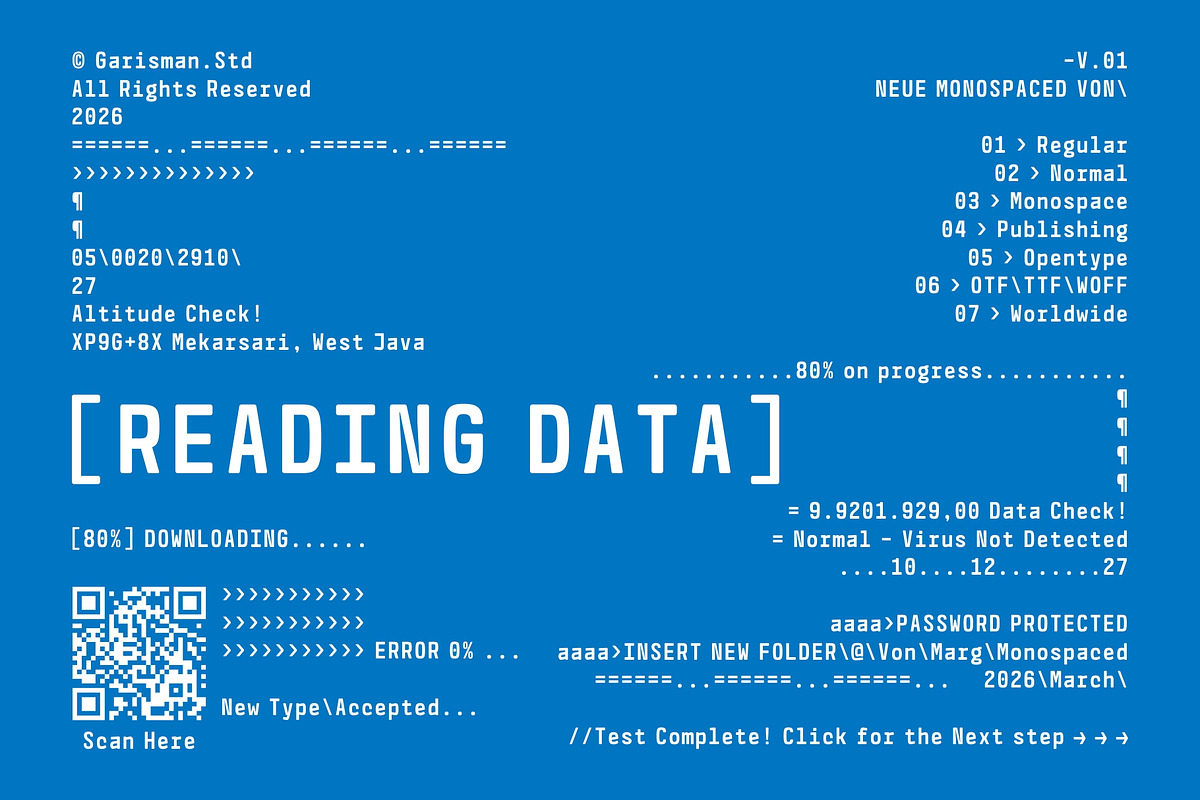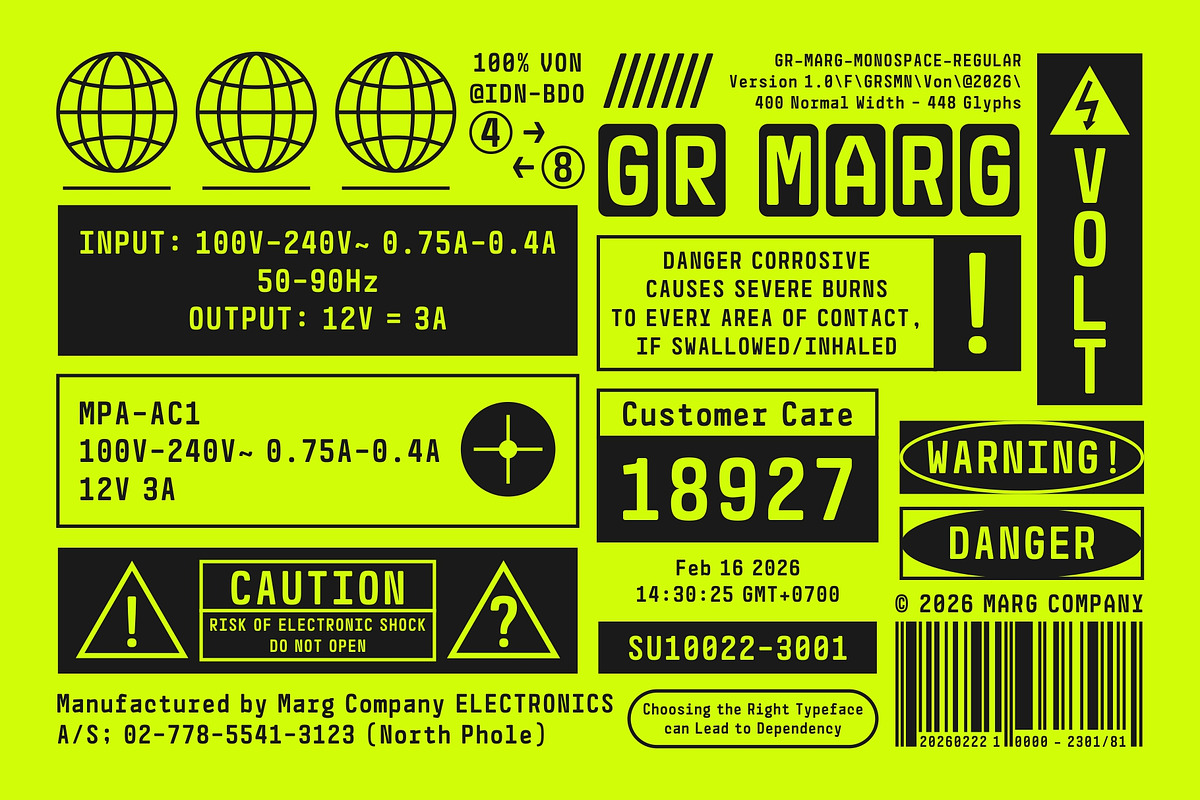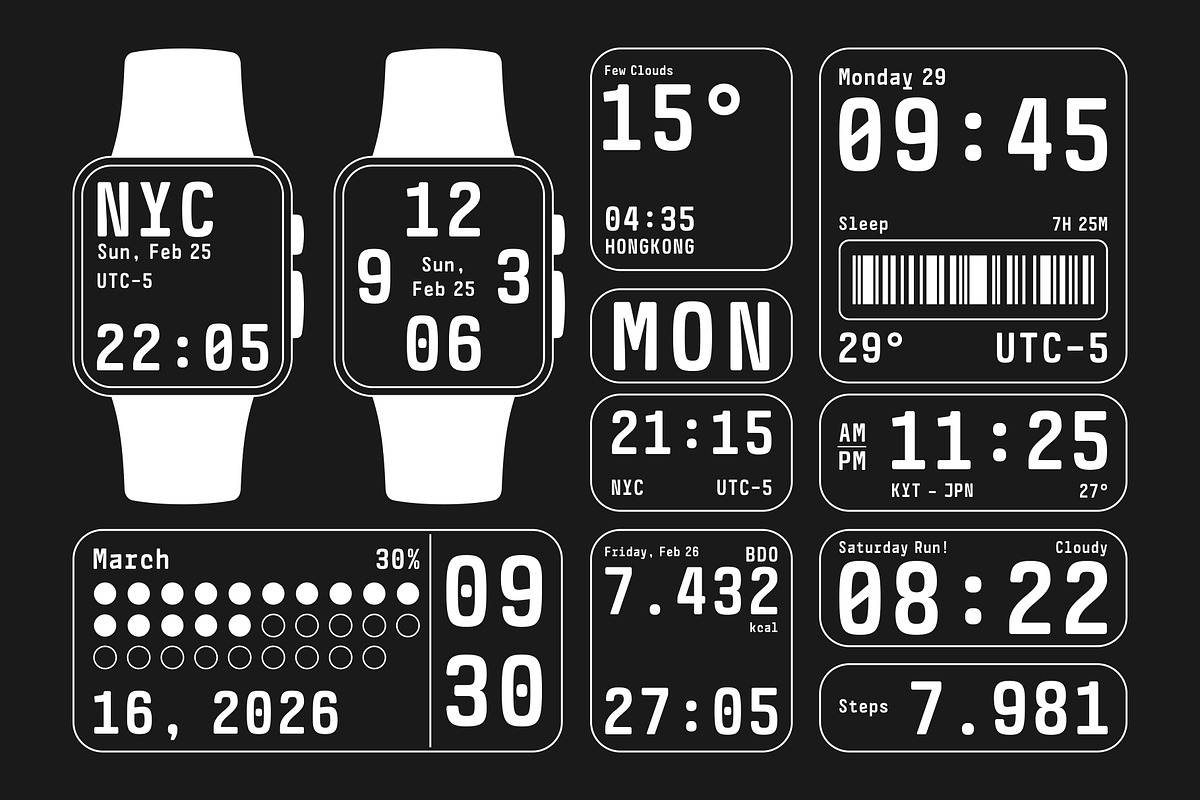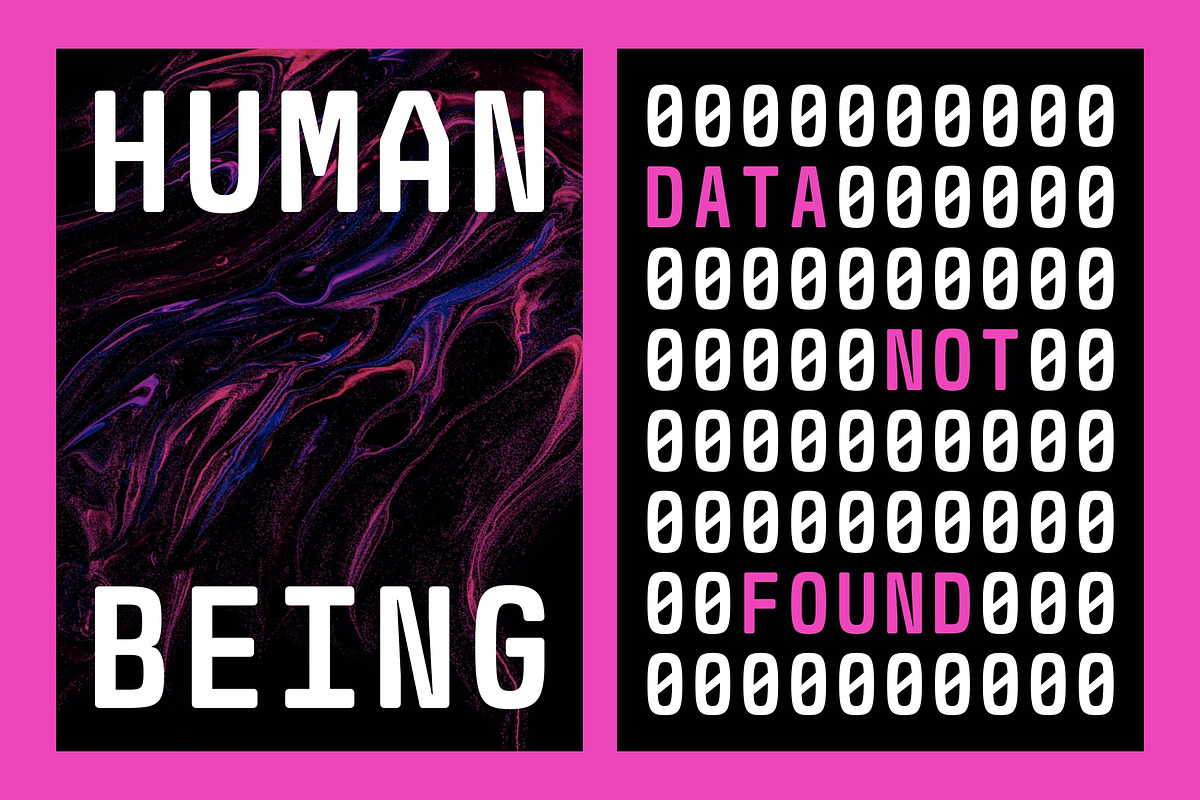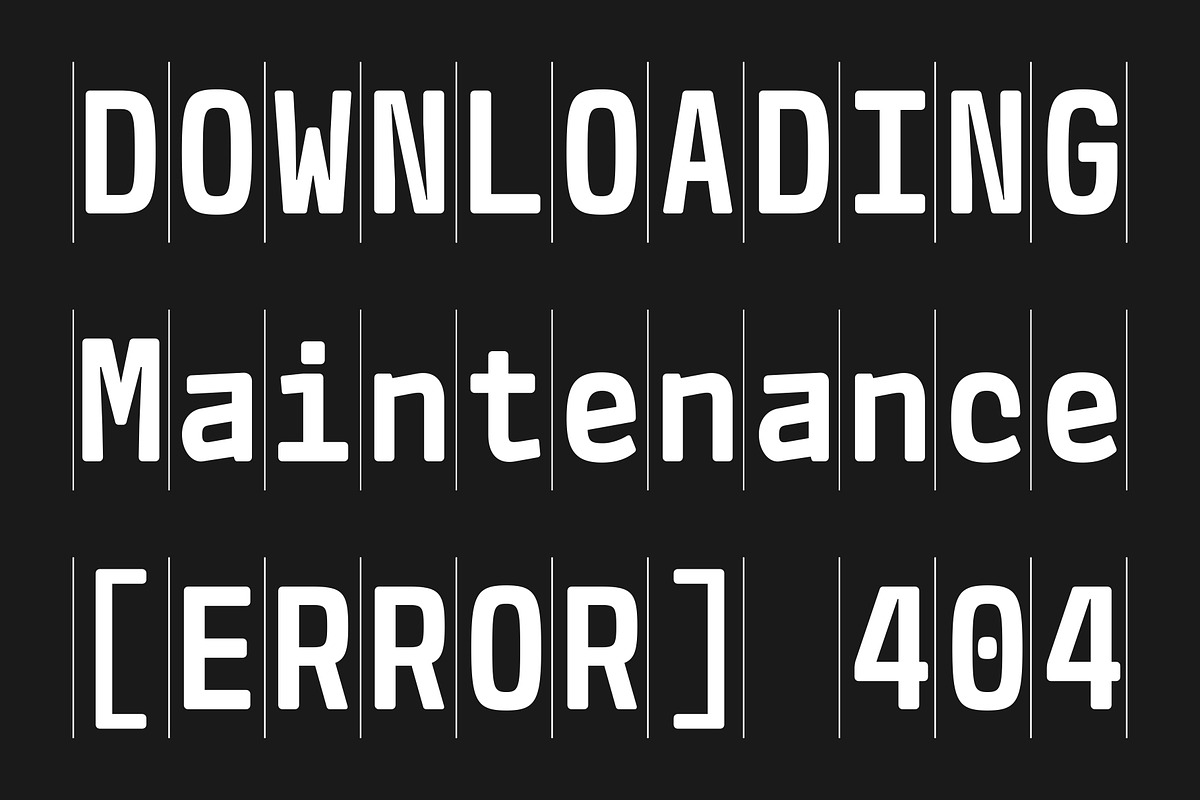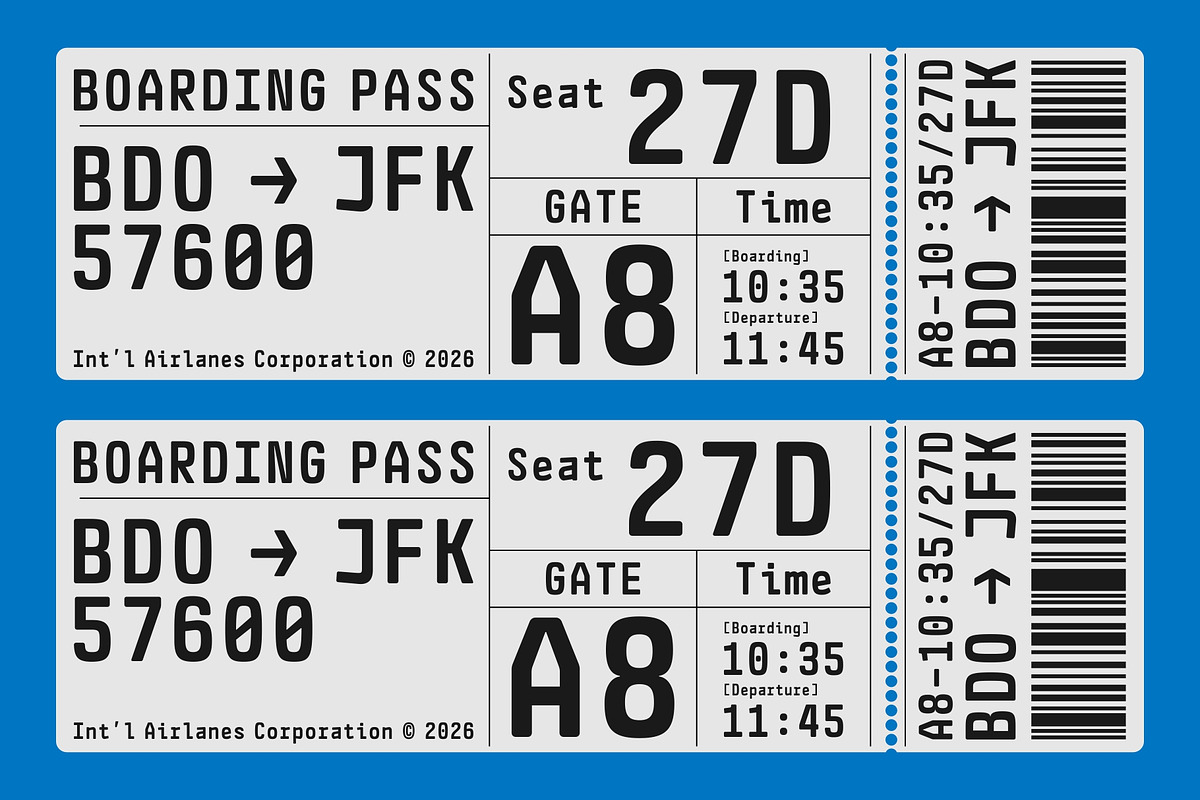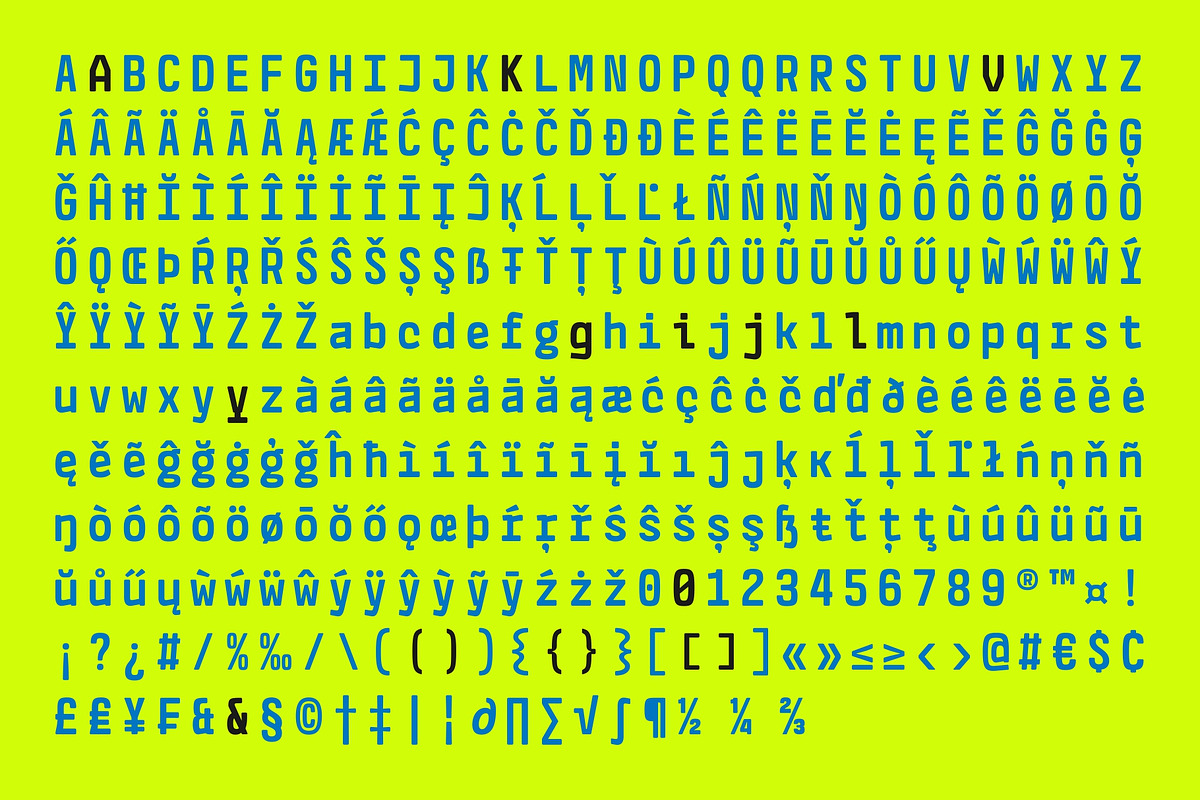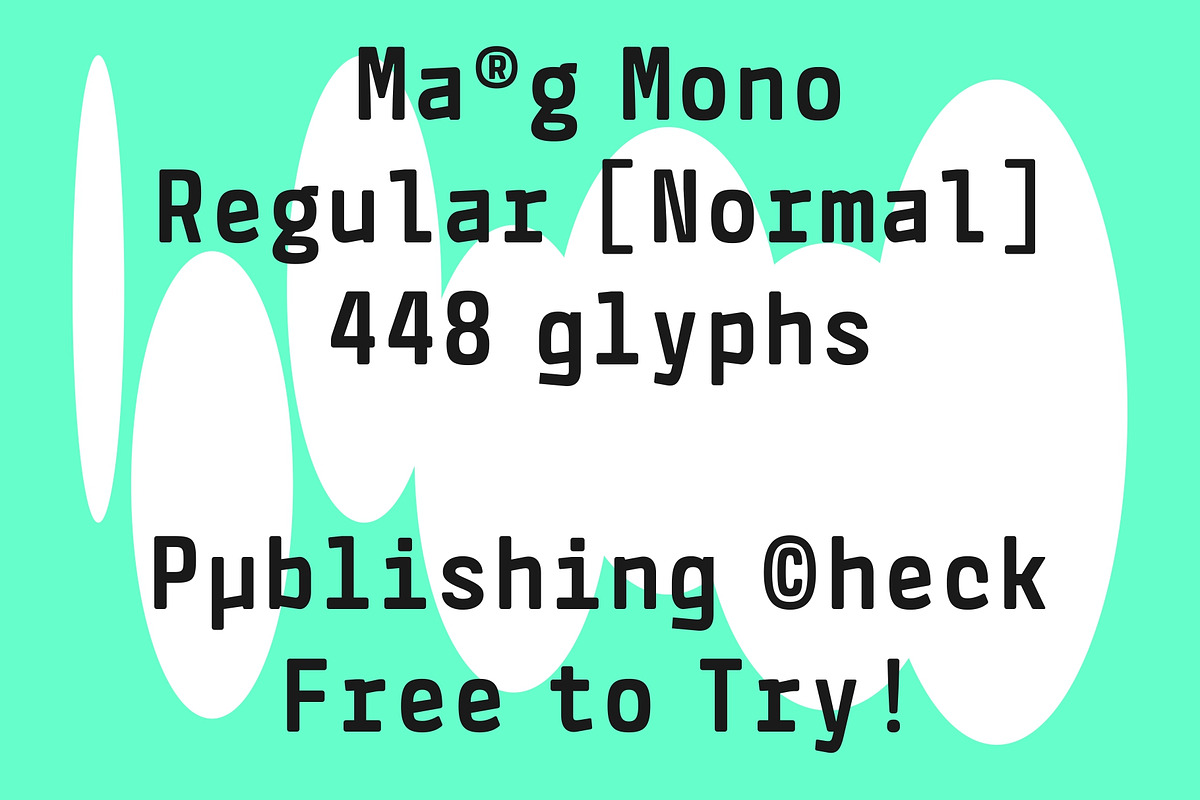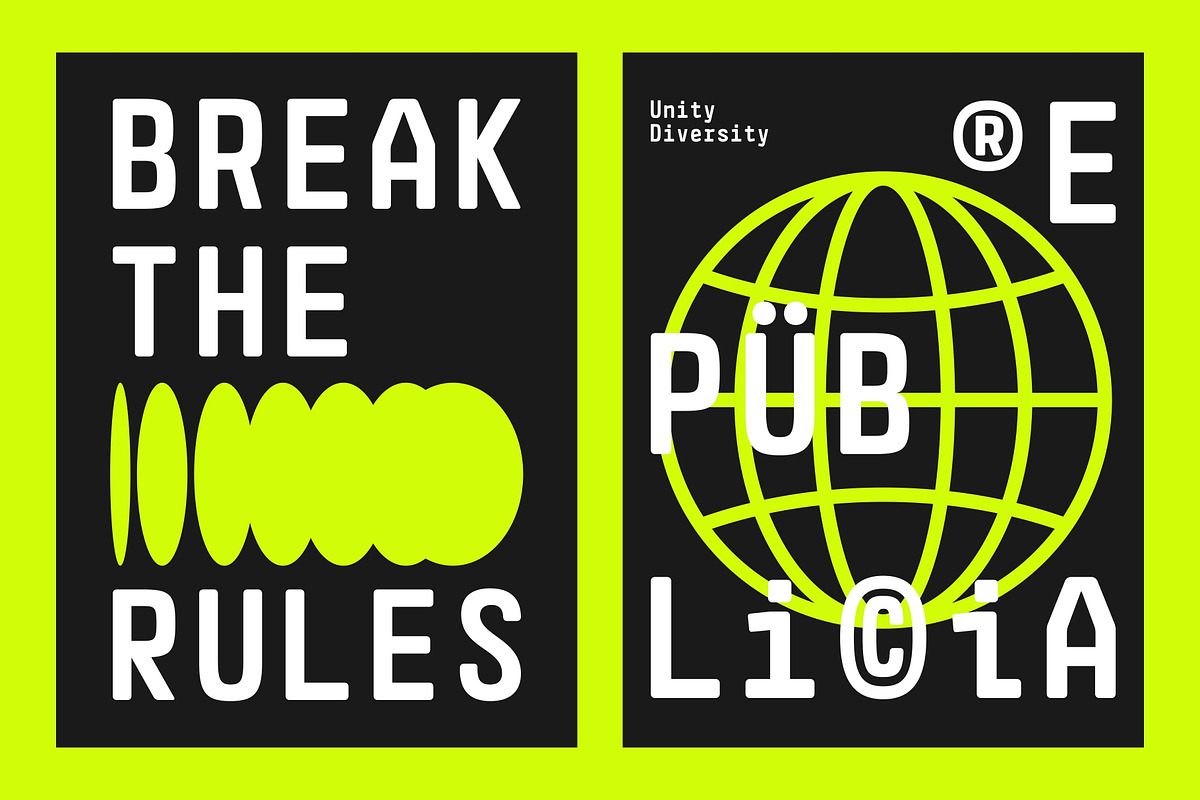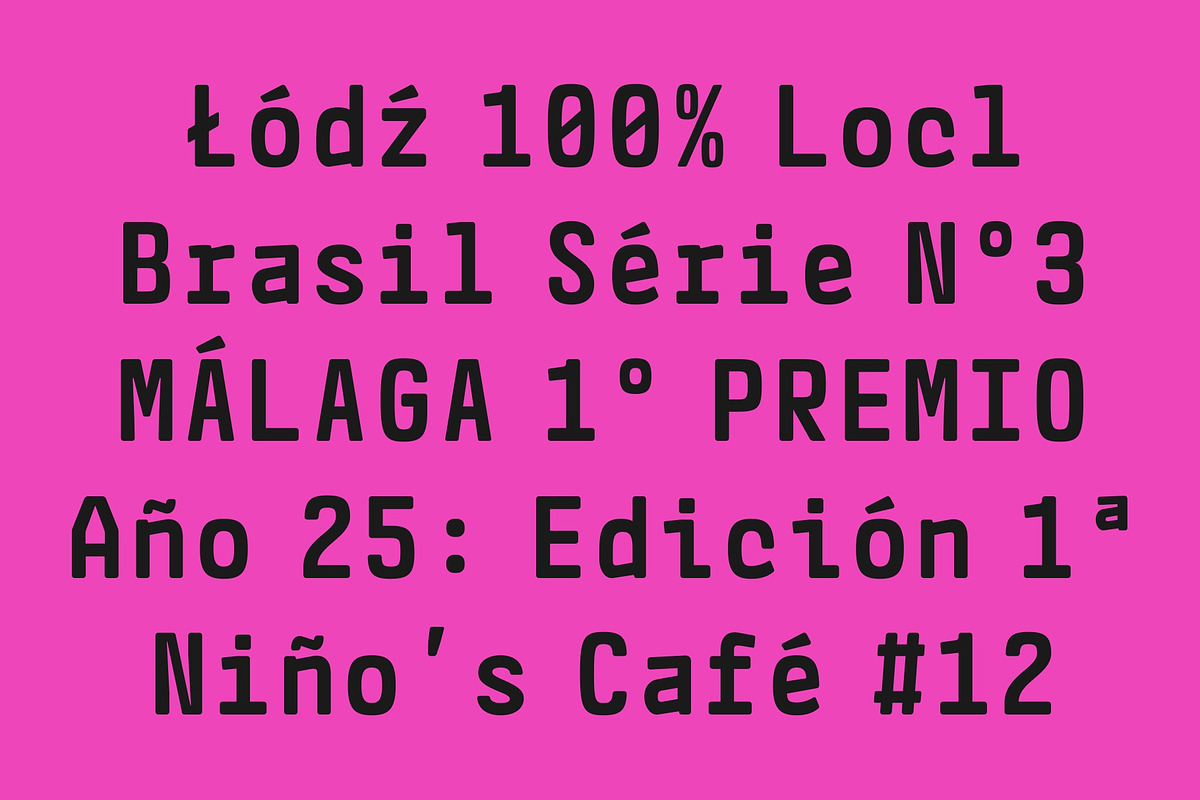
GR Marg Monospace
Meet GR Marg Monospace, a modern display monospace built for precision and digital environments.
Designed with equal character spacing, this typeface keeps everything aligned—perfect for:
- Code editors and scripting
- Console and system interfaces
- Dashboard and statistical layouts
- Ticket and boarding-style designs
- Startup and tech branding
- Futuristic and modular posters
GR Marg Monospace combines the clarity of programming fonts with a clean, modern aesthetic suitable for branding and display use. It’s structured, systematic, and engineered for data-driven compositions.
OpenType features include fractions, ordinals, stylistic alternates, and a slashed zero for enhanced numeric clarity. Supporting 99 languages and delivered in OTF, TTF, WOFF, and WOFF2 formats, it integrates smoothly into both print and web workflows.
- 1 Style: Regular
- Monospace Display Typeface
- 99 Language Support